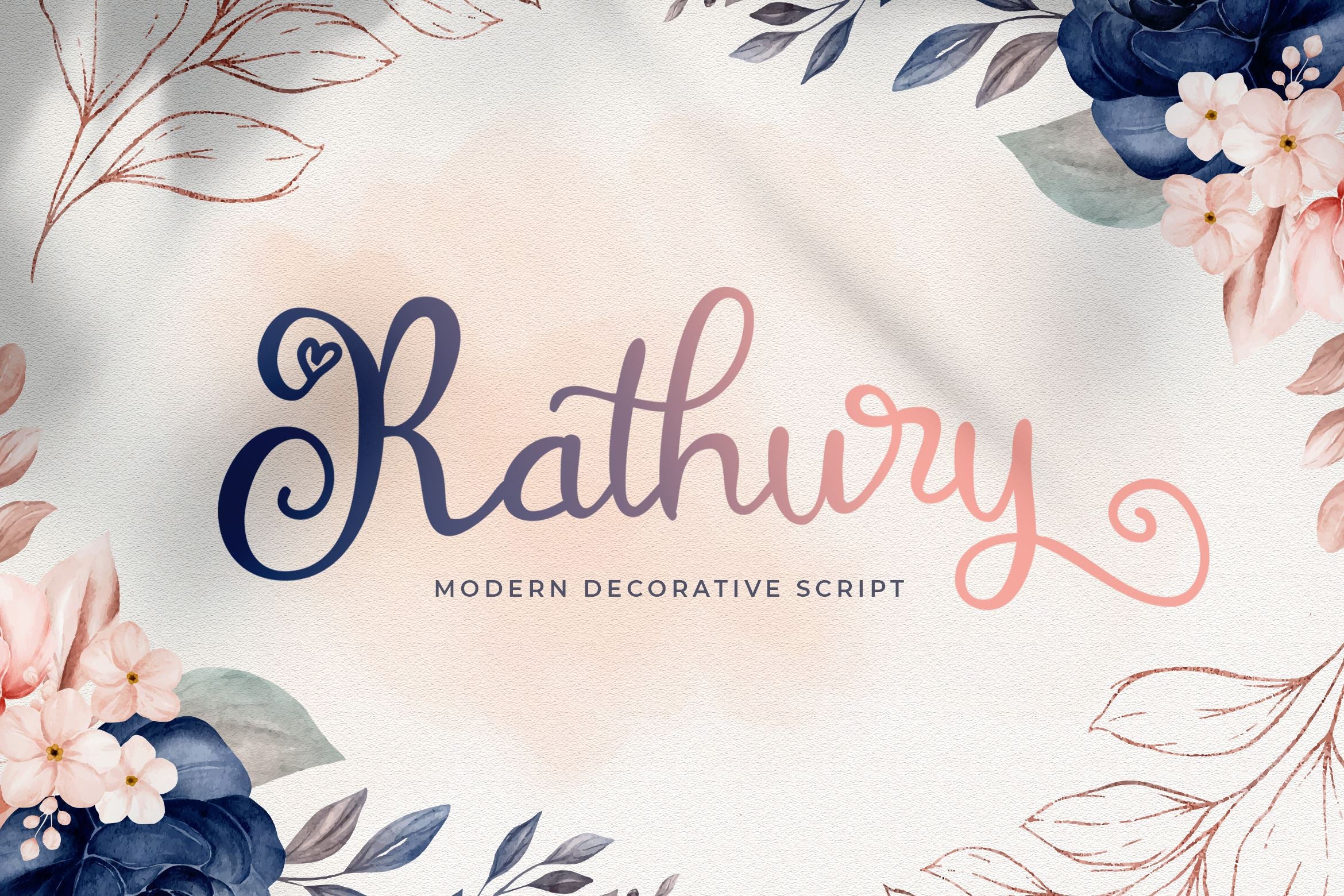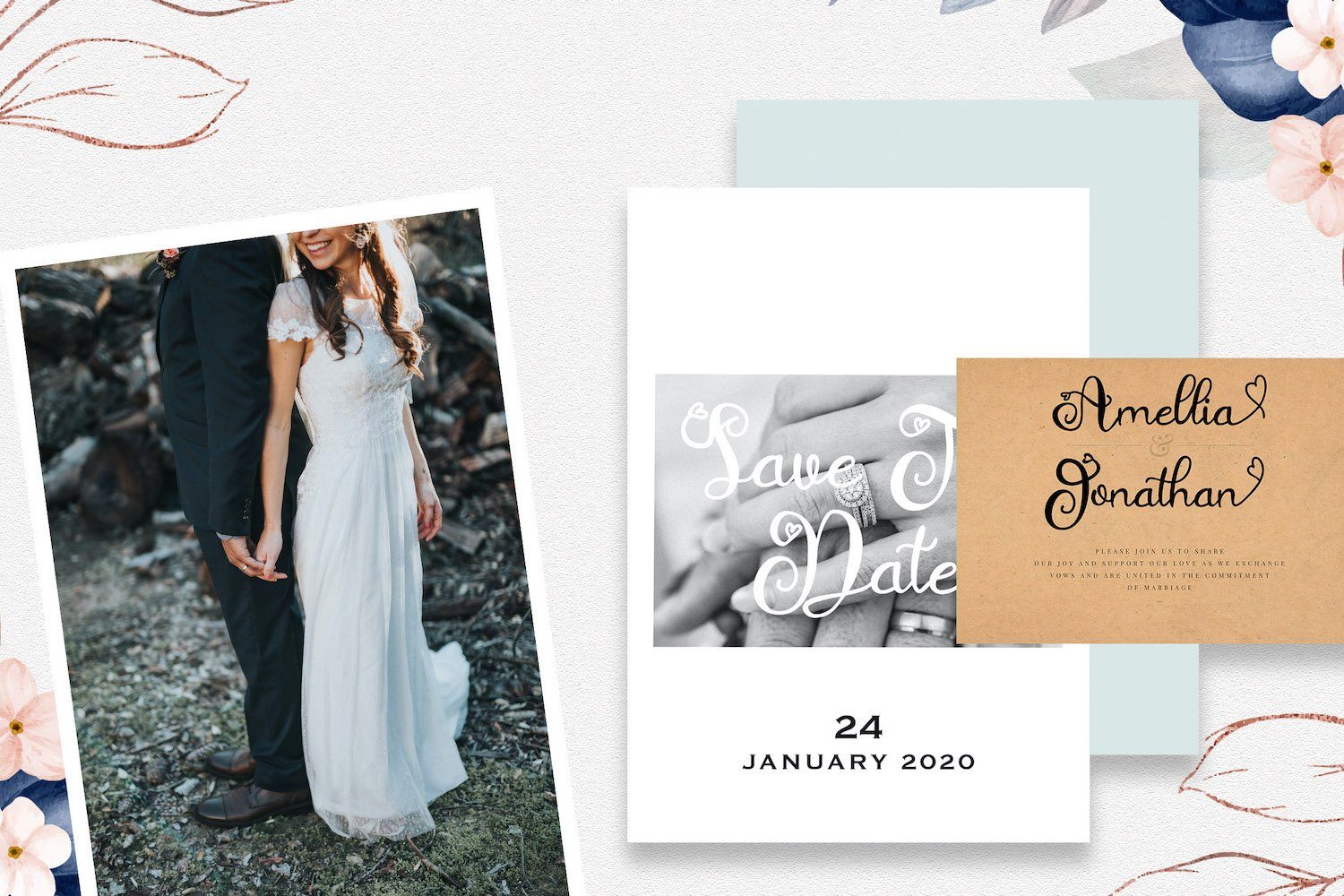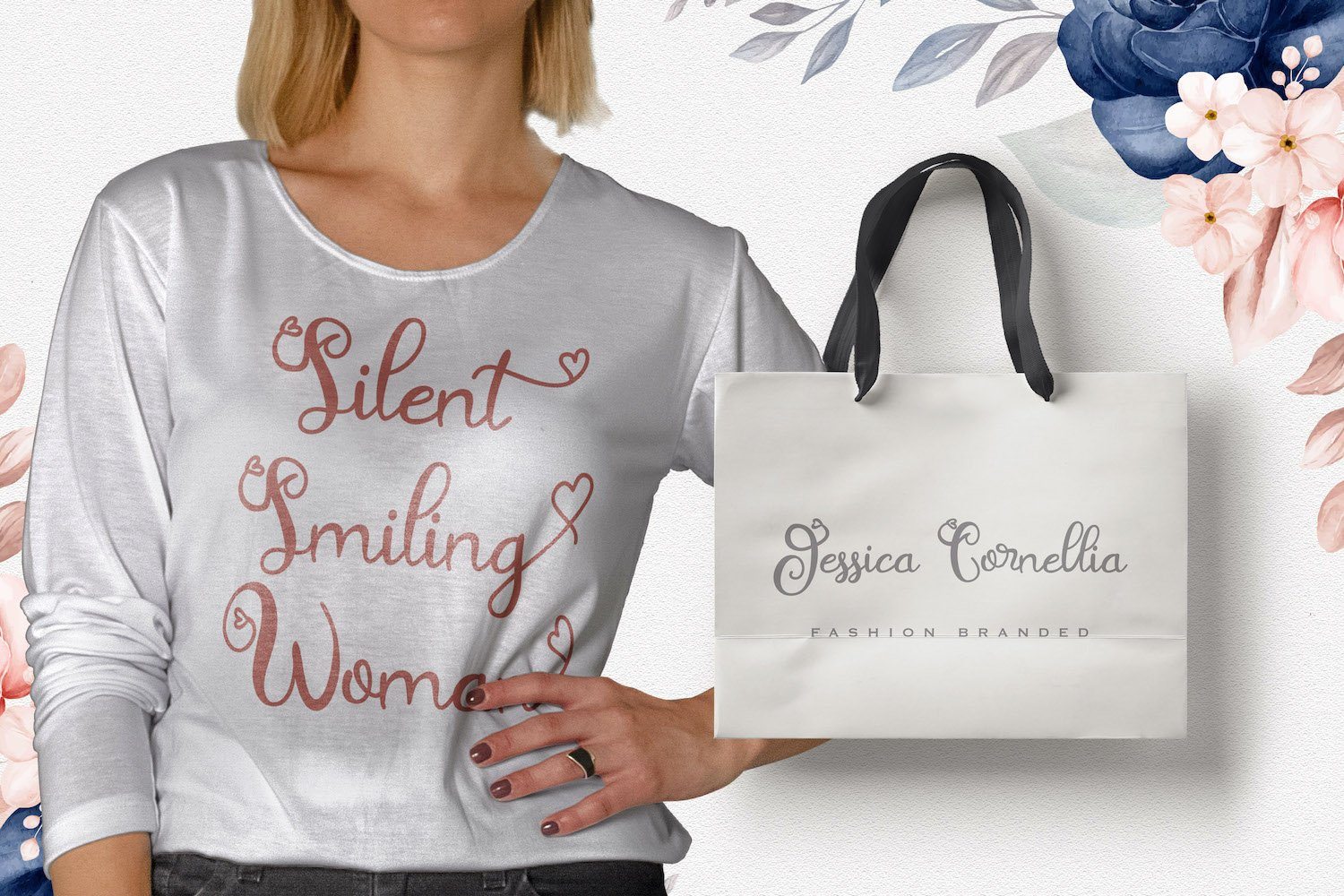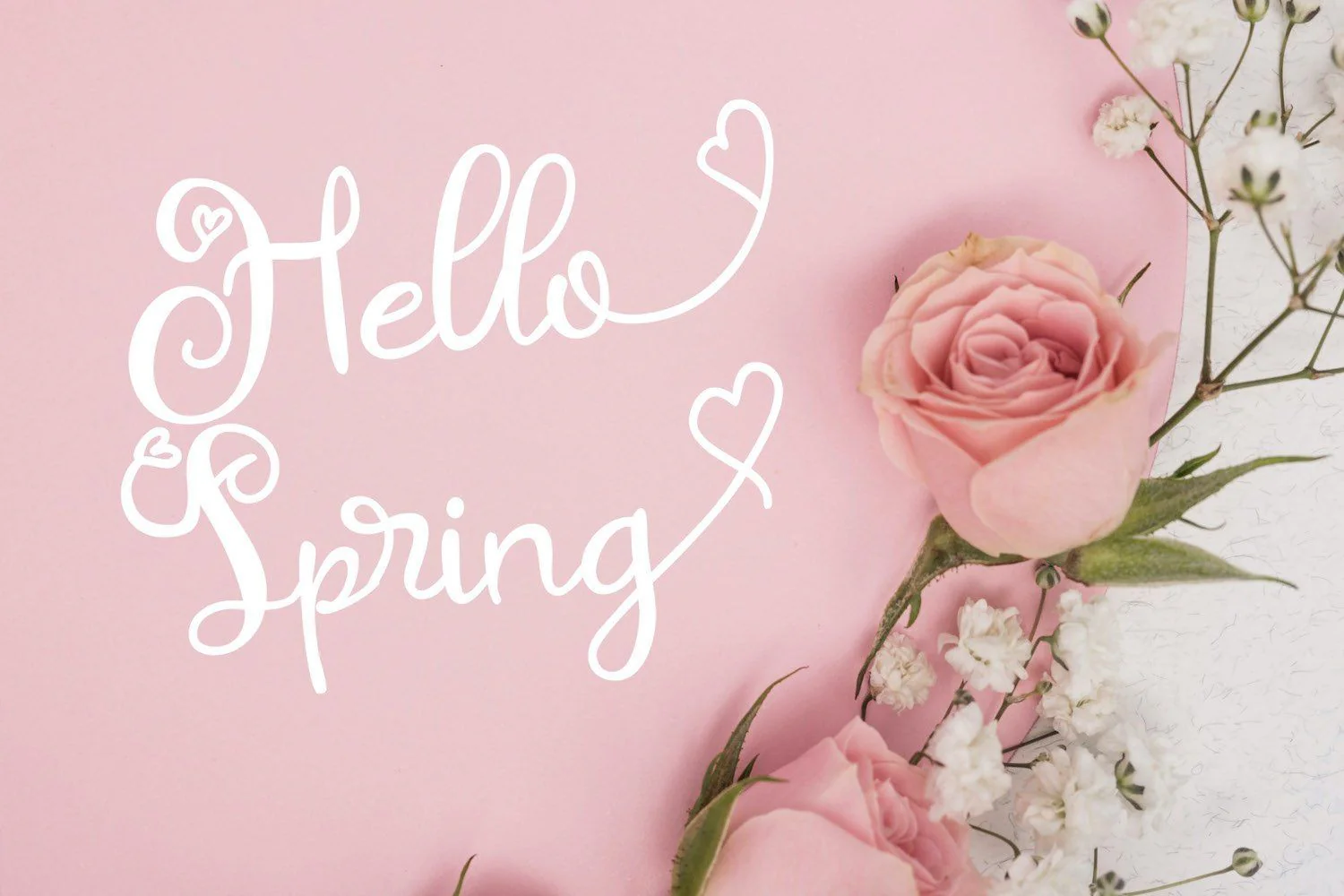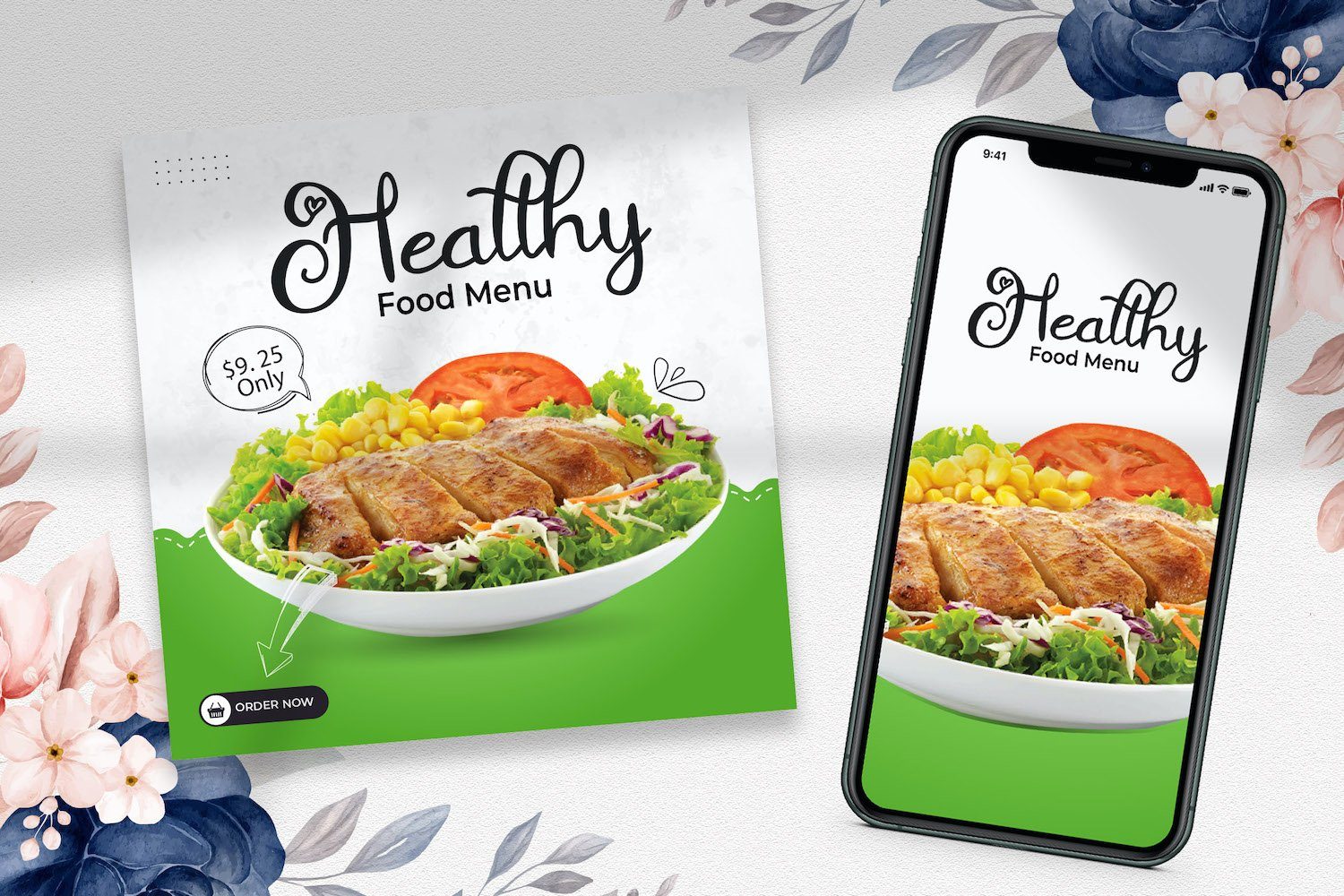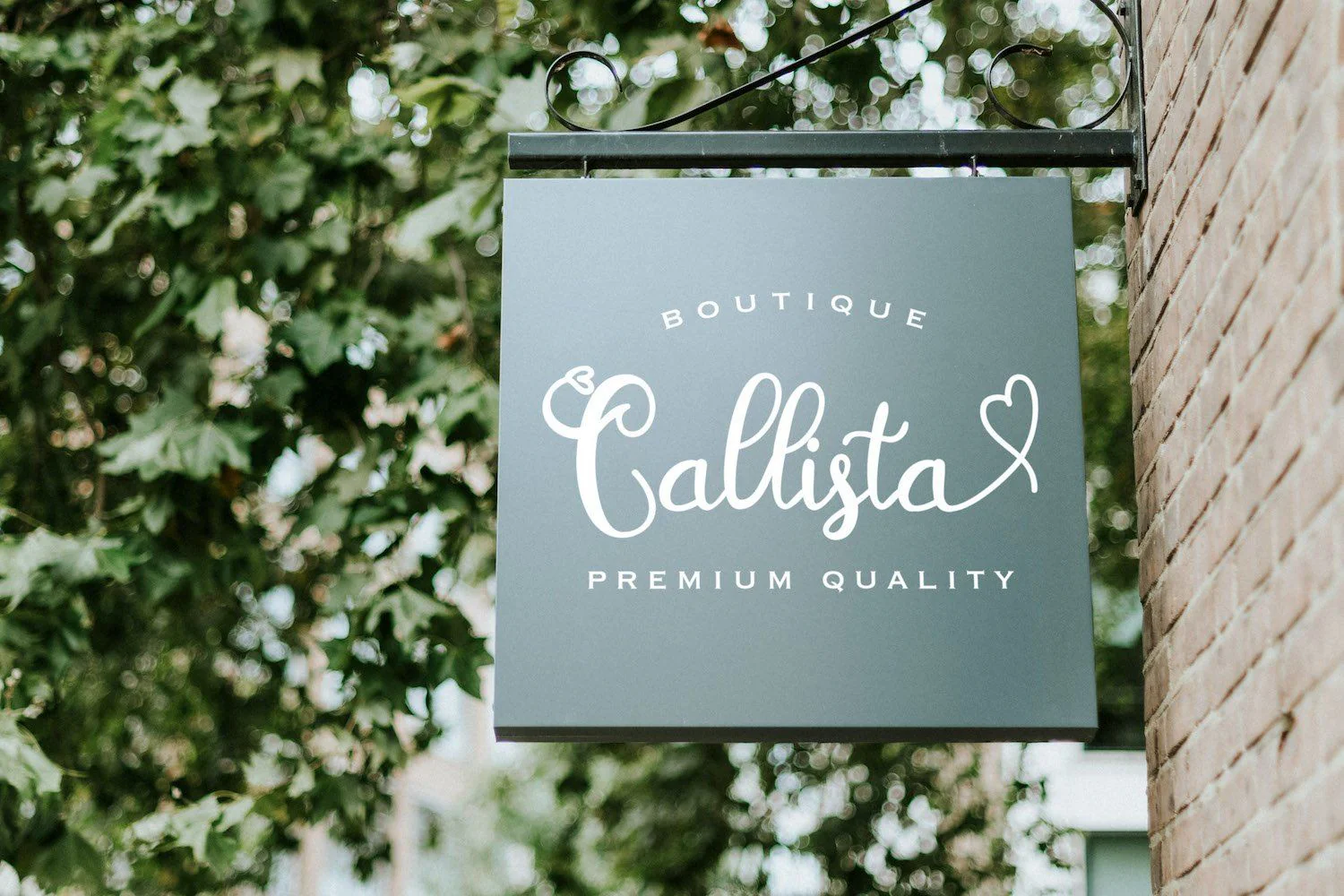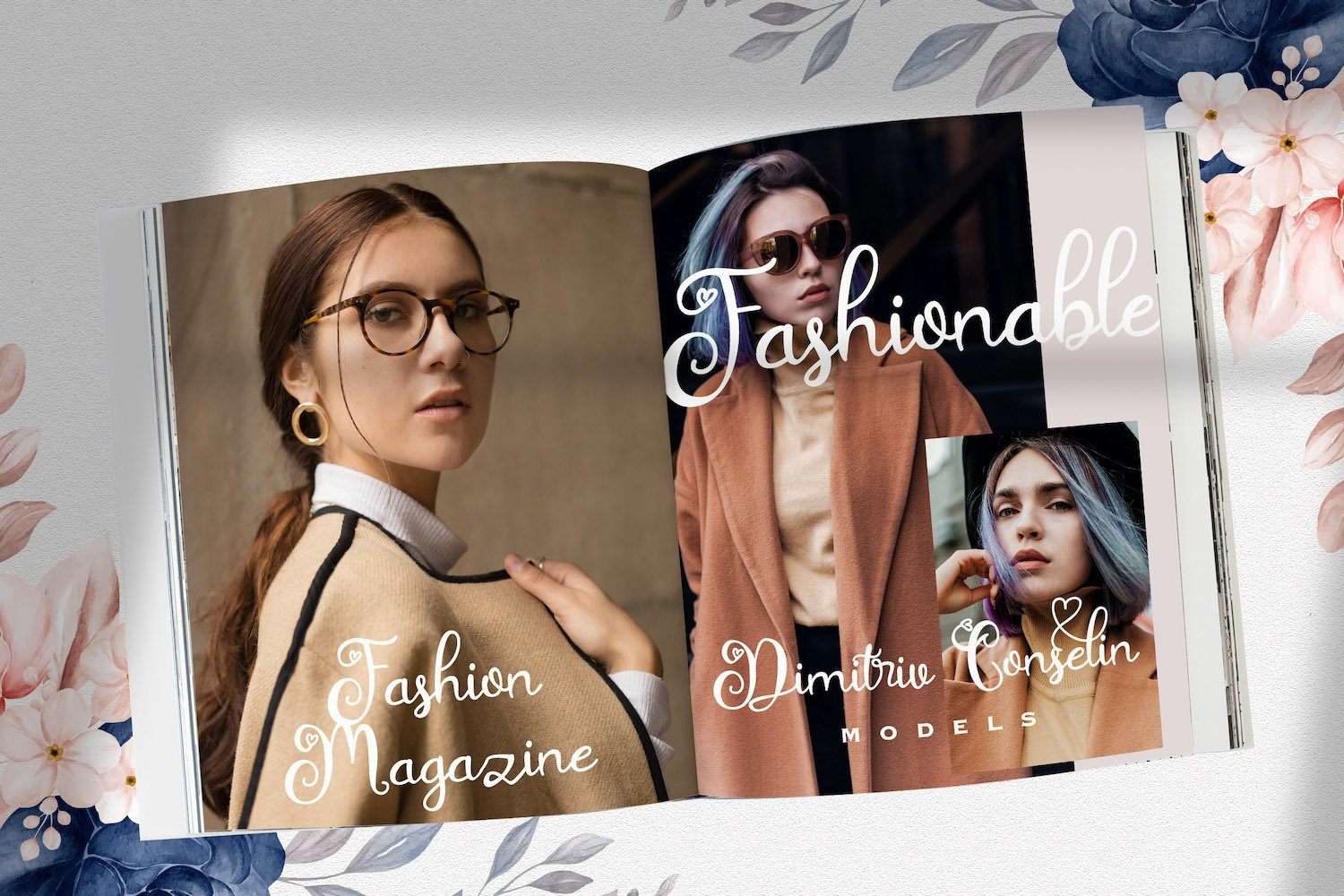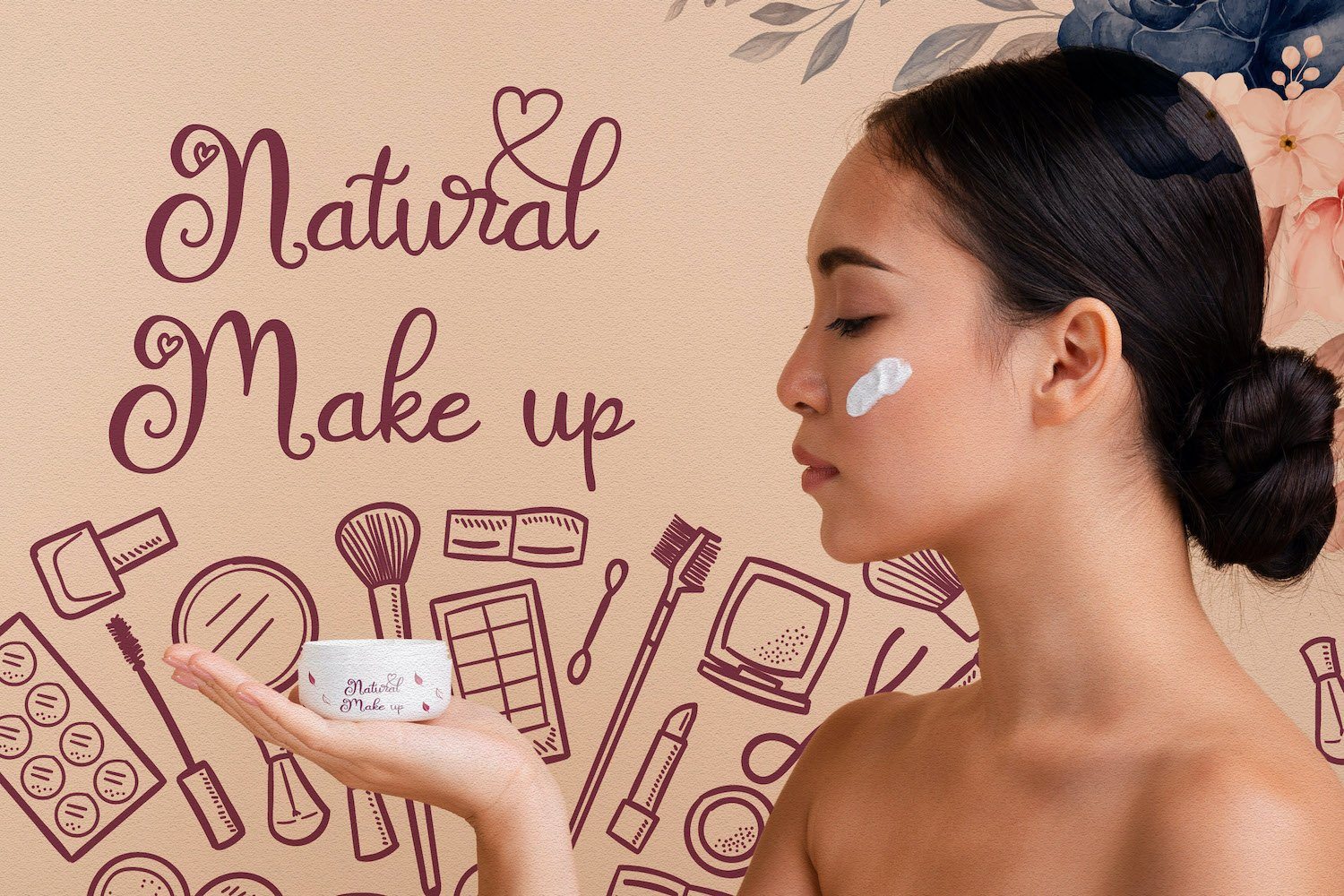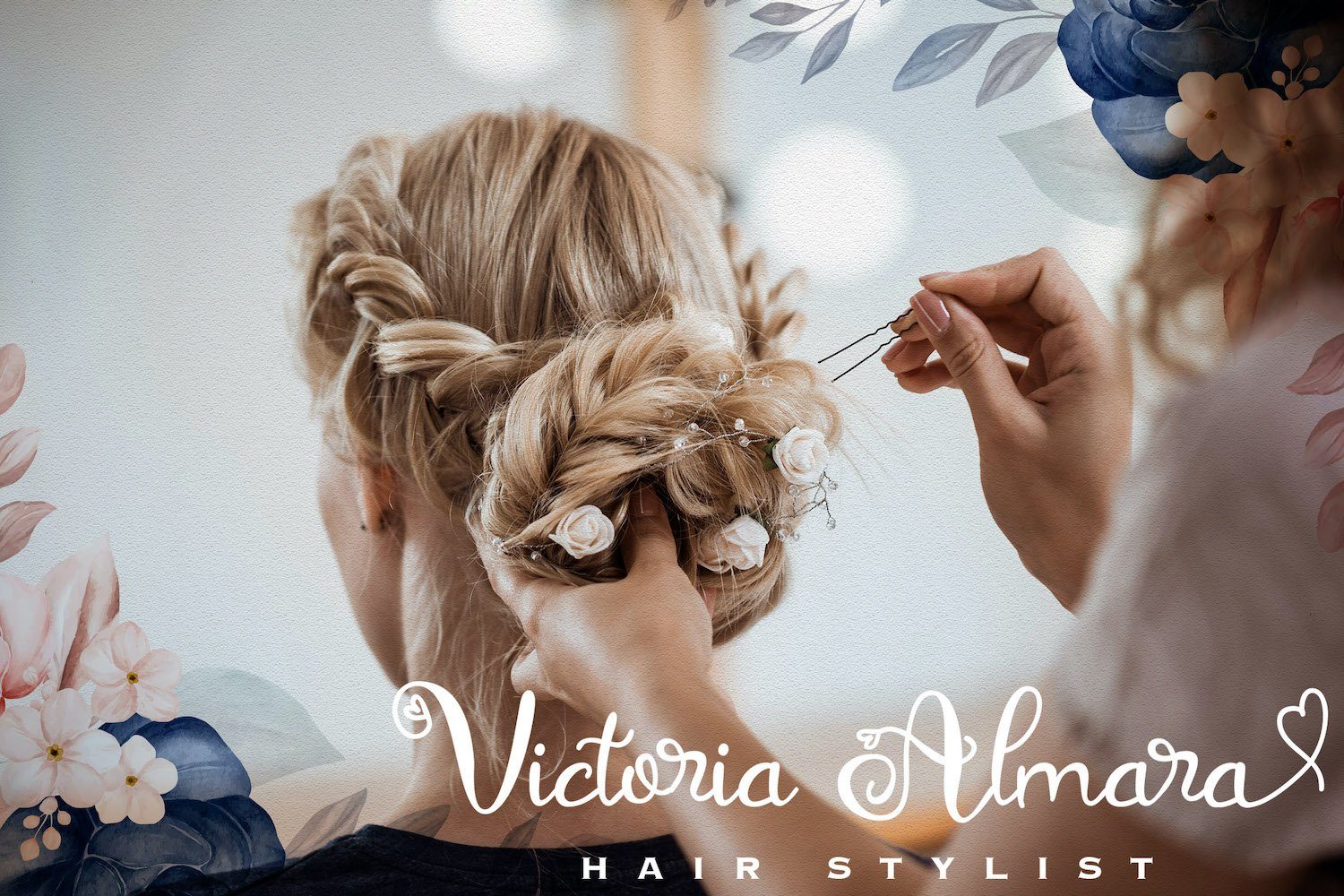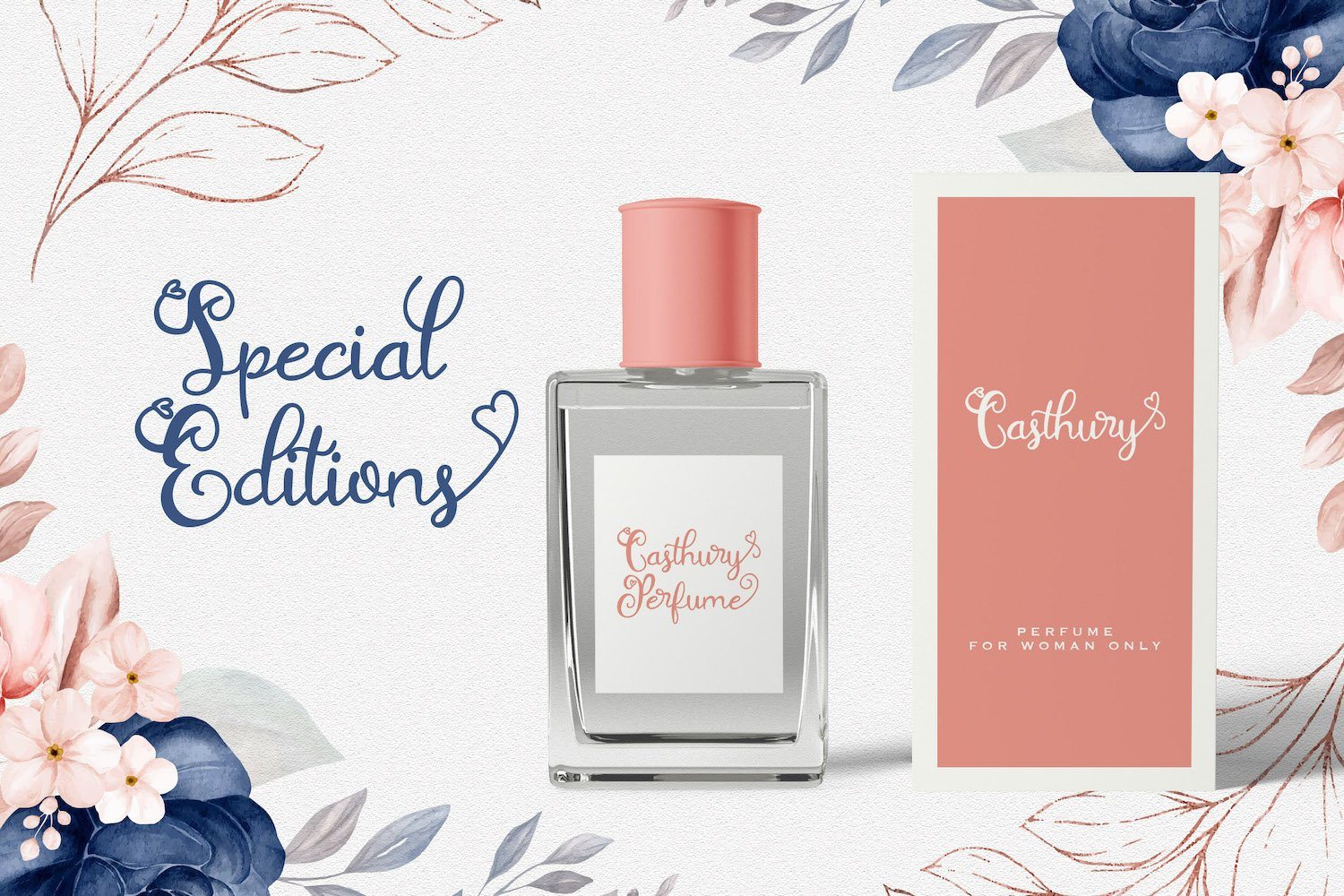
Rathury - Modern Decorative Script Font
Introducing Rathury - Modern Decorative Script Font
Rathury is a beautiful and modern handwritten script font. It features gorgeous swashes and ligatures that make this script incredibly versatile. Whether you’re looking for fonts for social media or calligraphy scripts for DIY projects, Rathury will turn any creative idea into a true piece of art!
Introducing Rathury - Modern Decorative Script Font
Rathury is a beautiful and modern handwritten script font. It features gorgeous swashes and ligatures that make this script incredibly versatile. Whether you’re looking for fonts for social media or calligraphy scripts for DIY projects, Rathury will turn any creative idea into a true piece of art!